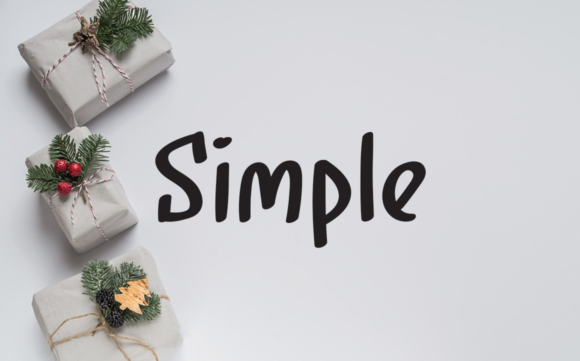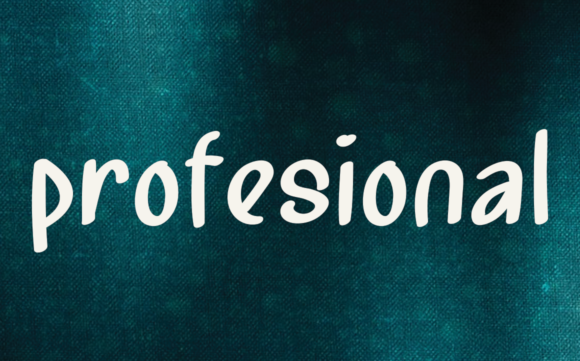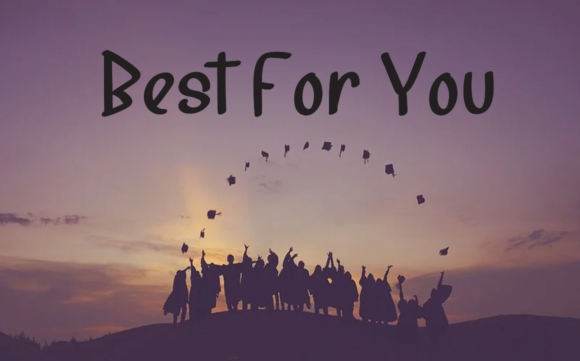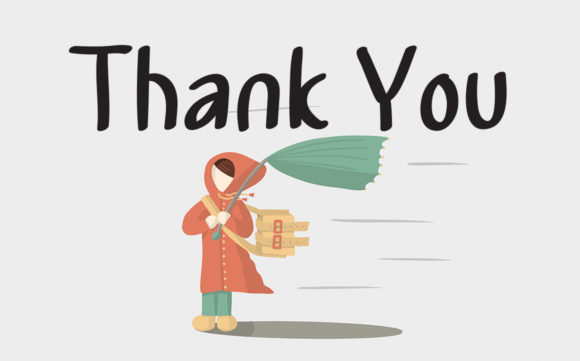
About Simple Minimalist Font
Simple Minimalist is a chic and versatile script font. This font was particularly crafted for those who need a beautiful and refreshing look to their designs.